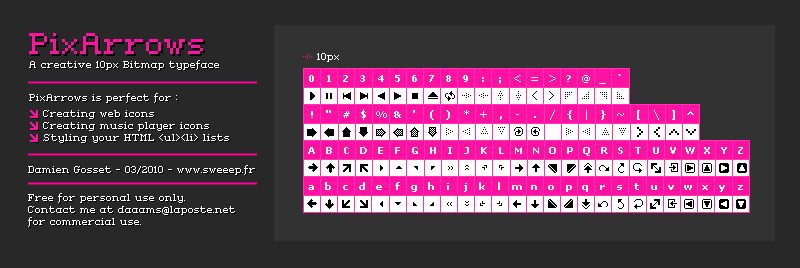
PixArrows is a distinctive dingbats font that exudes a strong, pixelated aesthetic. Designed by Damien Gosset, this font boasts a collection of striking symbols and glyphs that evoke a retro, 8-bit charm. From simple geometric shapes to whimsical arrows and computer-inspired icons, PixArrows offers a versatile visual language for designers seeking to infuse their work with a nostalgic, digital-age flair.
The font's sharp, angular forms and monochromatic palette lend it a bold, minimalist appeal, making it well-suited for a variety of applications, from branding and packaging to user interface design and digital art. PixArrows can be particularly effective in adding a touch of vintage-inspired personality to projects that seek to capture the essence of classic gaming or retro technology.
Best display / Meilleur affichage : 10px, 20px, 30px,...